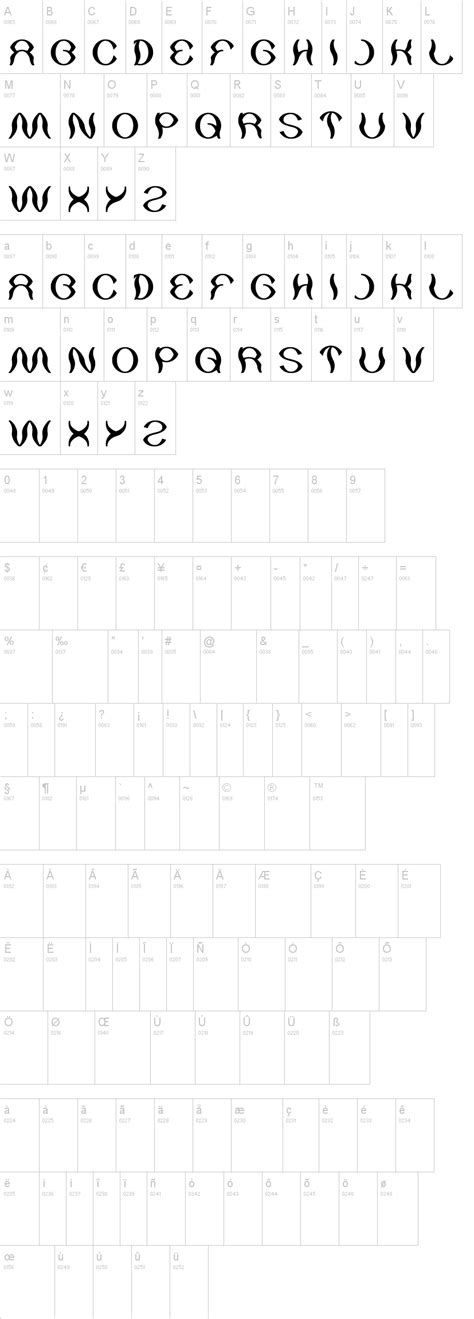
Unleash Your Groovy Side With Dafont Psychedelic Fonts
Hey design gurus and creative minds! Ever feel the urge to inject some serious vibe into your projects? You know, that feeling you get when you stumble upon something totally far out, something that just screams 60s and 70s cool? Well, guys, we’re about to dive deep into the magical, mind-bending world of Dafont psychedelic fonts . These aren’t just any fonts; they’re tiny portals to an era of peace, love, and mind-expanding art. Whether you’re designing a poster for a retro music festival, crafting a unique brand identity, or just want to add a splash of vintage flair to your social media graphics, Dafont’s psychedelic collection is your one-stop shop for all things groovy. We’re talking swirling letters, bold and bubbly shapes, and that unmistakable hand-drawn feel that’s impossible to replicate. So, grab your lava lamp, put on some Jefferson Airplane, and let’s explore how these fonts can totally transform your next design masterpiece. Get ready to go on a visual trip that’s as fun as it is functional!
Why Psychedelic Fonts Are Still Rad Today
So, why are we still obsessing over psychedelic fonts decades after the Summer of Love? It’s a great question, and the answer is pretty simple, really. These fonts tap into a powerful sense of nostalgia, but they’re also incredibly versatile and, dare I say, timeless . In a world that’s constantly churning out sleek, minimalist designs (which, don’t get me wrong, are great too!), psychedelic fonts offer a much-needed breath of fresh, funky air. They bring personality, energy, and a whole lot of character to the table. Think about it: a simple invitation can be elevated from ordinary to extraordinary with the right groovy font. A business logo can stand out from the generic crowd and instantly communicate a fun, creative, and perhaps even a bit rebellious spirit. Dafont’s extensive library makes it super easy to find these gems. You can sift through endless options, all categorized and ready for you to download and play with. It’s like having a treasure chest filled with typographic gold, just waiting to be discovered. And the best part? Many of these fonts are free for personal use, making them accessible to everyone, from hobbyists to aspiring designers. They allow you to experiment and express yourself without breaking the bank. We’re talking about fonts that feel organic, hand-crafted, and bursting with life. They have a certain warmth and authenticity that’s hard to find in more rigid, digital-first typefaces. This makes them perfect for projects that aim to connect with an audience on a more personal and emotional level. They evoke feelings of freedom, creativity, and a rejection of the mundane. Plus, let’s be honest, they’re just plain fun to look at and use! The organic flow, the unexpected curves, the vibrant energy – it all adds up to a design element that can make your work truly unforgettable.
Exploring the Dafont Psychedelic Font Universe
When you first land on Dafont and start exploring their psychedelic font collection, prepare to be amazed. It’s a wonderland of shapes and styles. You’ll find fonts that mimic the iconic lettering seen on concert posters from the 1960s and 70s, with thick, rounded strokes, swirly embellishments, and sometimes even a slightly distorted or wavy appearance. These fonts often have a very handmade feel, as if they were drawn with a brush or marker, giving them an authentic, organic charm. Then there are the bubbly, balloon-like fonts that are playful and energetic, perfect for adding a sense of fun and whimsy. These can be great for children’s designs or anything that needs a lighthearted touch. You’ll also discover fonts that are more abstract and experimental, pushing the boundaries of typography with unique letterforms and unexpected layouts. These can add a real artistic edge to your work. Dafont does a fantastic job of organizing these fonts, often tagging them with keywords like “groovy,” “retro,” “60s,” “70s,” or “psychedelic,” making your search much easier. You can preview each font with your own text, which is a lifesaver. Seeing how your specific words look in a particular font helps you make the right choice. Remember to check the license for each font, as many are free for personal use but may require a purchase for commercial projects. This is super important, guys, so always double-check! The sheer variety means you can find a psychedelic font to match almost any mood or theme. Want something trippy and abstract? Got it. Need something more legible but still retro? They’ve got that too. It’s a vast universe, and each font has its own unique personality, waiting to be unleashed in your designs. The community aspect of Dafont is also a huge plus. You can see comments from other users, which can give you insights into how a font performs in different contexts. This collaborative environment really helps in choosing the best typeface for your needs. It’s like having a team of fellow designers giving you advice! The ability to sort by popularity or date added also helps you discover both timeless classics and fresh new takes on the psychedelic style. It’s a dynamic and ever-evolving resource that keeps on giving.
Tips for Using Psychedelic Fonts Like a Pro
Alright, fellow creatives, let’s talk strategy! Using Dafont psychedelic fonts effectively is an art form in itself. While they’re incredibly eye-catching, overdoing it can lead to a design that’s hard to read or looks a bit chaotic. The key is balance, guys! First off, know your audience and your message . Are you going for a full-on retro immersion, or do you just want a hint of that groovy vibe? For maximum impact, use these bold fonts for headlines, titles, or short bursts of text where you want to grab attention. Think event posters, album covers, or even a catchy tagline. For longer blocks of text, it’s usually best to opt for a more legible, standard font that complements the psychedelic one. The contrast can actually make your headline pop even more! Another pro tip: pair your psychedelic font with a simple, clean sans-serif or serif font . This creates a visual hierarchy and ensures readability. The groovy font does the heavy lifting for its visual appeal, while the secondary font handles the informational content. Don’t be afraid of color! Psychedelic fonts were often paired with vibrant, clashing color palettes. While you don’t need to go full rainbow warrior, using bold colors that complement the font’s energy can really enhance the overall effect. Consider using gradients or color overlays to add depth and visual interest. Experiment with effects . Many design programs allow you to add textures, outlines, or subtle distortions to your text. These can further enhance the psychedelic feel, but use them sparingly. Too many effects can muddy the design. Finally, consistency is key . If you’re using a specific psychedelic font for a campaign or brand, stick with it. This helps build recognition and reinforces the overall aesthetic. Remember, these fonts are powerful tools. Use them wisely, and they’ll bring an undeniable energy and personality to your designs that will leave a lasting impression. They’re not just letters; they’re statements. They tell a story, evoke a feeling, and transport your audience. So, have fun with it, experiment, and let the good vibes flow through your typography!
Where to Find More Groovy Goodness